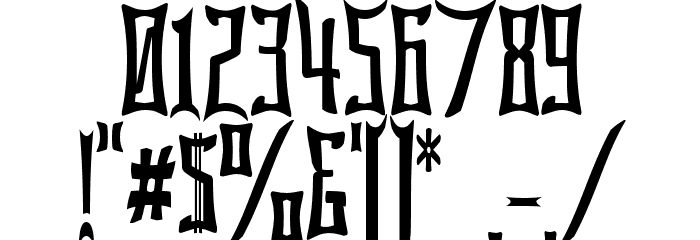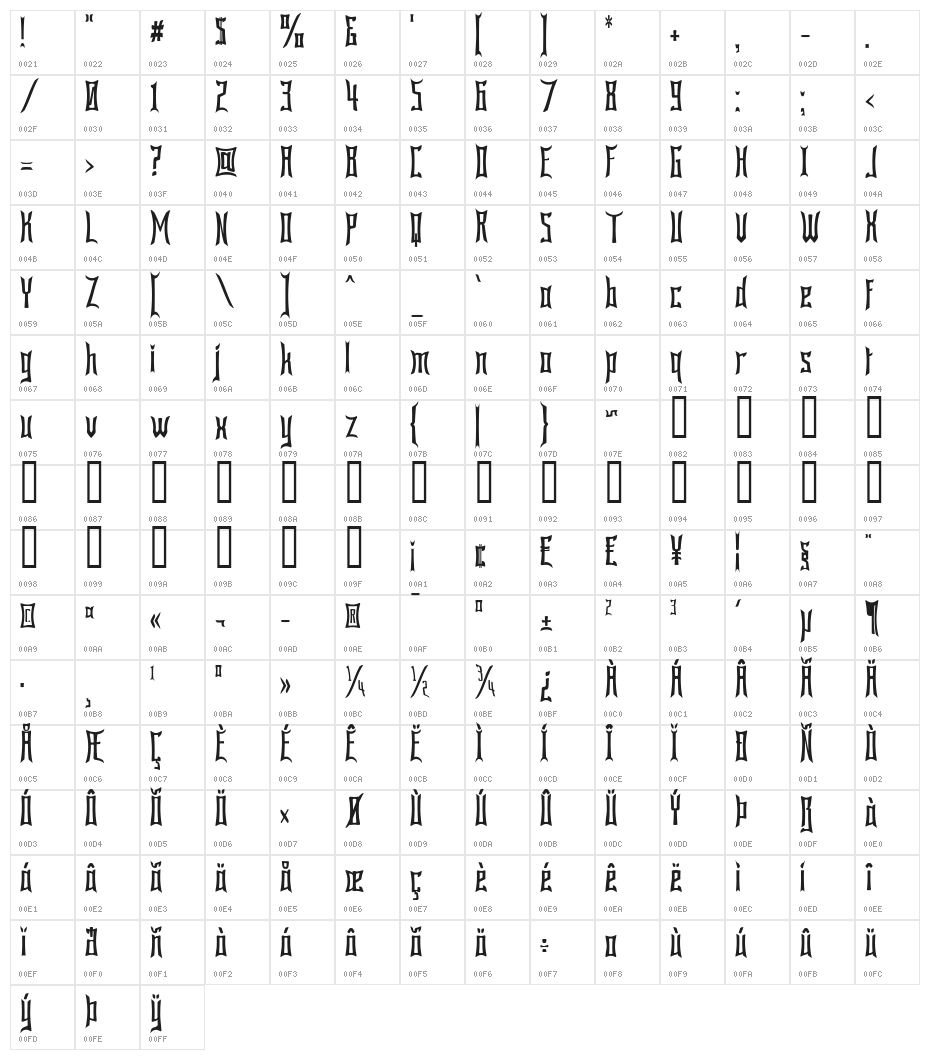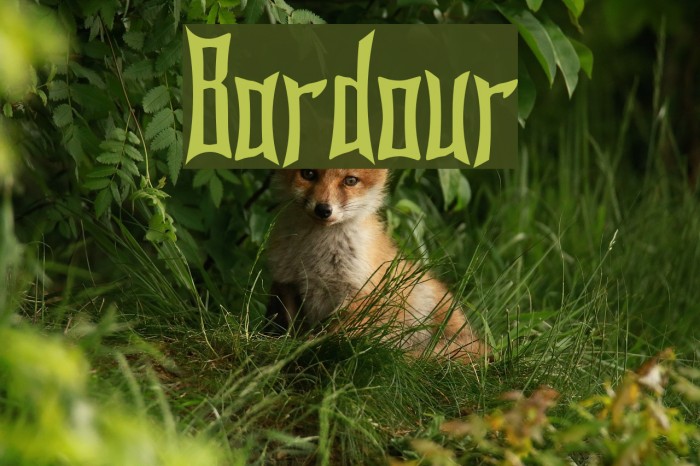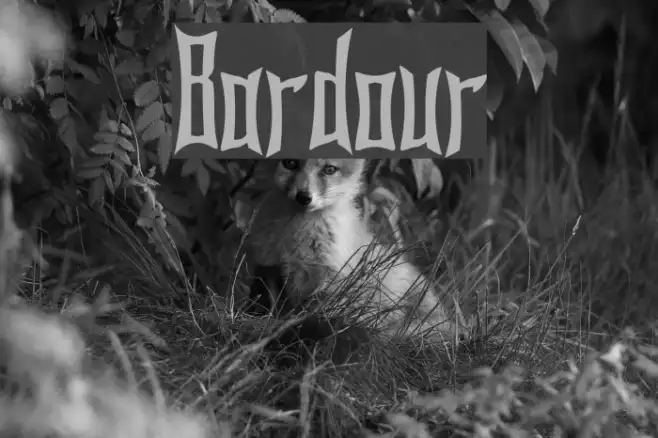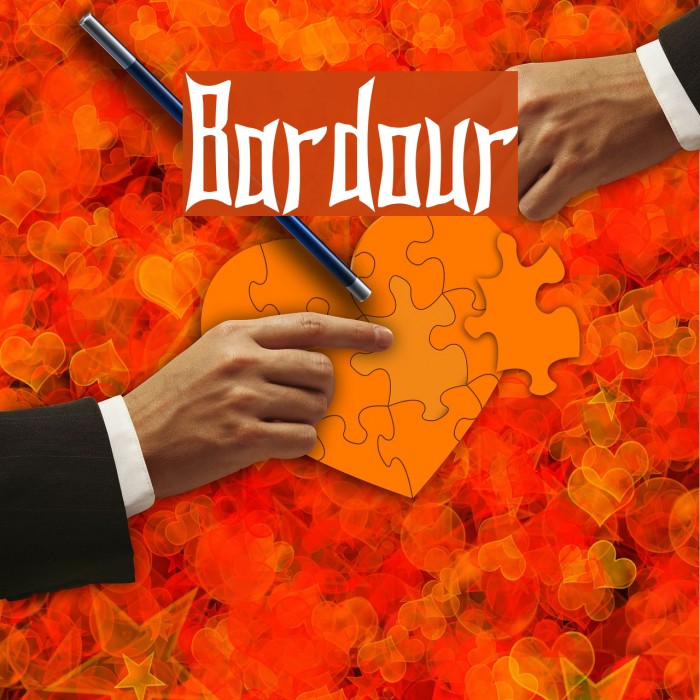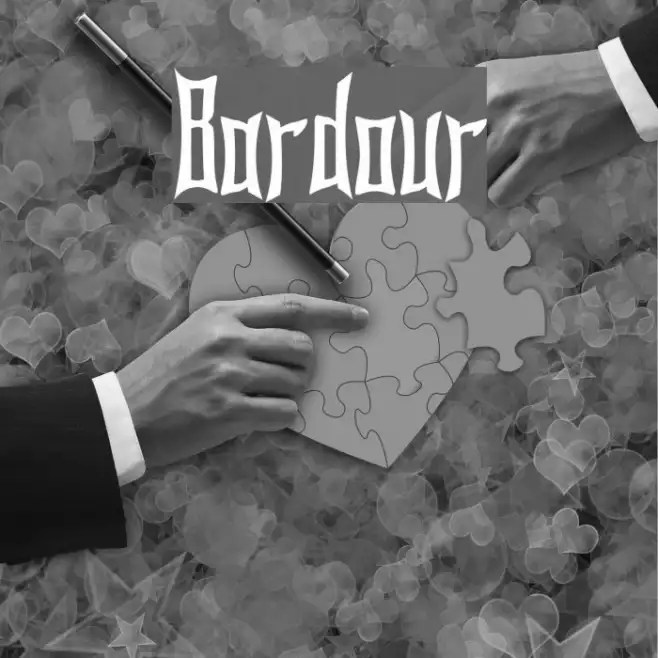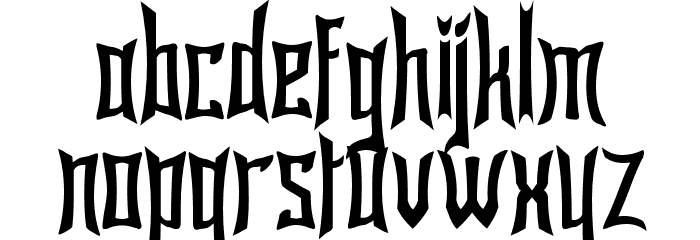
Bardour Font
Bardour Description
This font exhibits a bold and dramatic style with sharp, angular lines and a gothic influence. The characters are tall and narrow, with exaggerated serifs and a distinct medieval flair. The uppercase letters are particularly striking, with a strong vertical emphasis and intricate detailing. The lowercase letters maintain the same aesthetic, offering a cohesive look throughout the typeface. Numbers and special characters are designed to match the overall theme, making this font suitable for projects that require a bold, historical, or fantasy-inspired appearance.
| Overall Style | Gothic, Medieval, Dramatic |
| Proposed Projects | Ideal for fantasy book covers, gothic-themed posters, video game titles, or any project needing a dramatic and historical touch. |